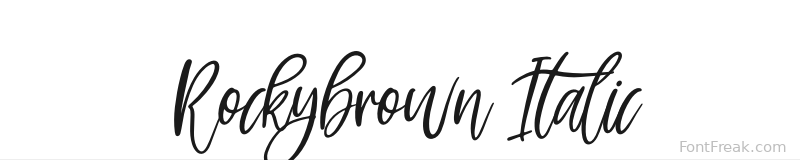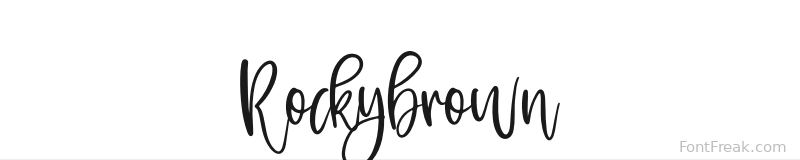
Rockybrown Italic
Rockybrown
About Rockybrown Italic
Rockybrown Italic, designed by Perspectype Studio in 2021, is a stunning display font that effortlessly combines elegance and modernity. This script-style typeface features a fluid, handwritten aesthetic, characterized by its graceful curves and dynamic strokes. The italicized form adds a sense of movement, making it an excellent choice for projects that require a personal touch. The stroke weight varies throughout the characters, creating an engaging contrast that draws the eye. The spacing is well-balanced, allowing for readability while maintaining an artistic flair.
This versatile font can be effectively used in a variety of applications. For wedding invitations, Rockybrown Italic brings a romantic and sophisticated vibe, perfect for setting the tone of the special day. Similarly, it shines in the realm of restaurant menus, where its elegant style can enhance the dining experience, making dishes sound more enticing. Additionally, it is well-suited for movie posters, where its artistic flair can capture attention and convey a sense of creativity. Content creators will also find it useful for social media graphics, as the font adds an engaging personal element to posts and promotional materials.
Targeting graphic designers, small business owners, and content creators alike, Rockybrown Italic appeals to anyone seeking a unique, handwritten touch in their designs. Its freeware license ensures that it is accessible for various projects, allowing users to explore its potential without financial constraints.
What sets Rockybrown Italic apart is its ability to balance artistic expression with practicality. This font not only enhances visual appeal but also communicates emotion and personality, making it a standout choice for any creative endeavor. Don't miss the opportunity to elevate your designs with the Rockybrown Italic font free download, a true gem in the world of typography.